Indie Fonts 2: A Compendium of Digital Type from Independent Foundries
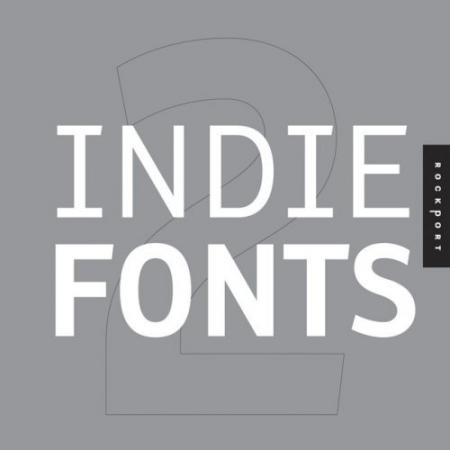
If you seem like your hunger for new fonts is insatiable, then Indie Fonts 2 is the book for you. It is the second installment in Rockport’s Indie Fonts series and brings you even more fonts to choose from. Don’t settle for ordinary fonts when you can capture your reader’s attention with an original font that hasn’t been become overused and boring.
Indie Fonts 2 includes more than 1600 diverse fonts from 19 of today’s hottest digital type foundries and features the best work of these designers. This comprehensive collection helps designers do their jobs even better by providing some of the highest quality fonts available today.
The type styles range from the best of Matthew Carter’s classic designs to the latest irreverence of ingoFonts. Designers searching for unique typefaces will find what they are looking for, whether historical revivals or futuristic techno faces.